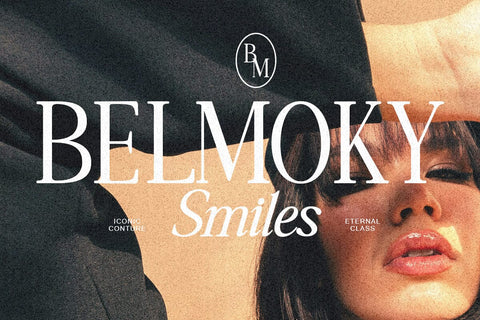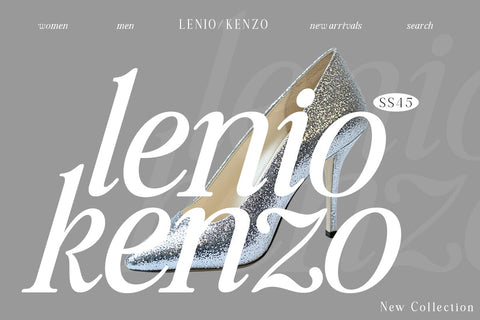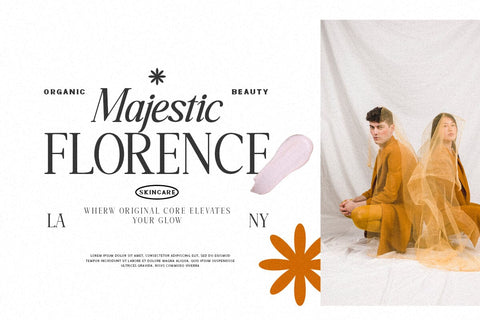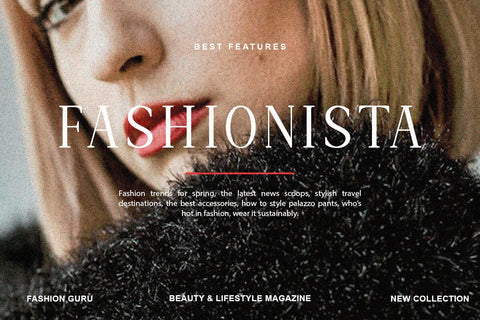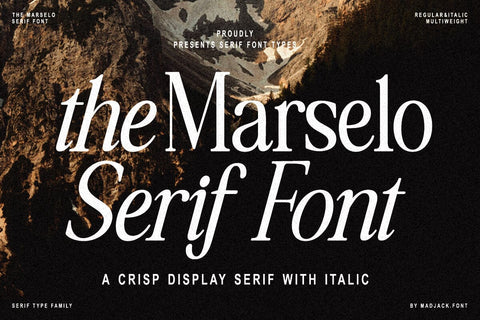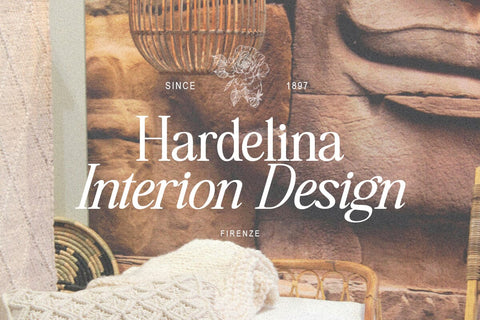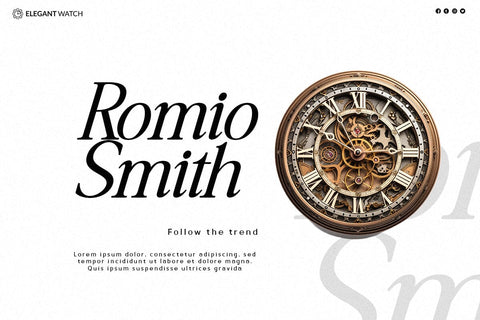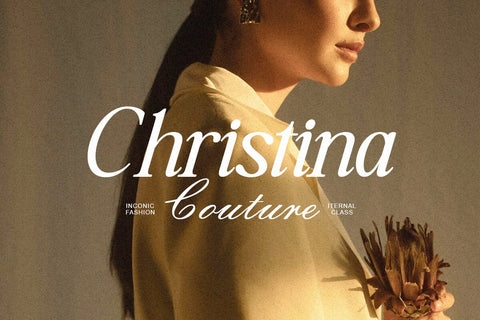
The Marselo Serif Font
Introducing Marselo Serif Font – a soft and expressive serif typeface
Marselo Serif Font combines classic elegance with a contemporary touch. With graceful serifs, artistic strokes, and sophisticated letterforms, Marselo Serif Font delivers a strong and captivating visual appearance. Ideal for branding, editorial layouts, product packaging, and any design project that requires a bold and romantic touch.
Designed with great attention to detail, this typeface is best suited for large sizes, especially for headlines and other display elements—giving character and emotion to any design.